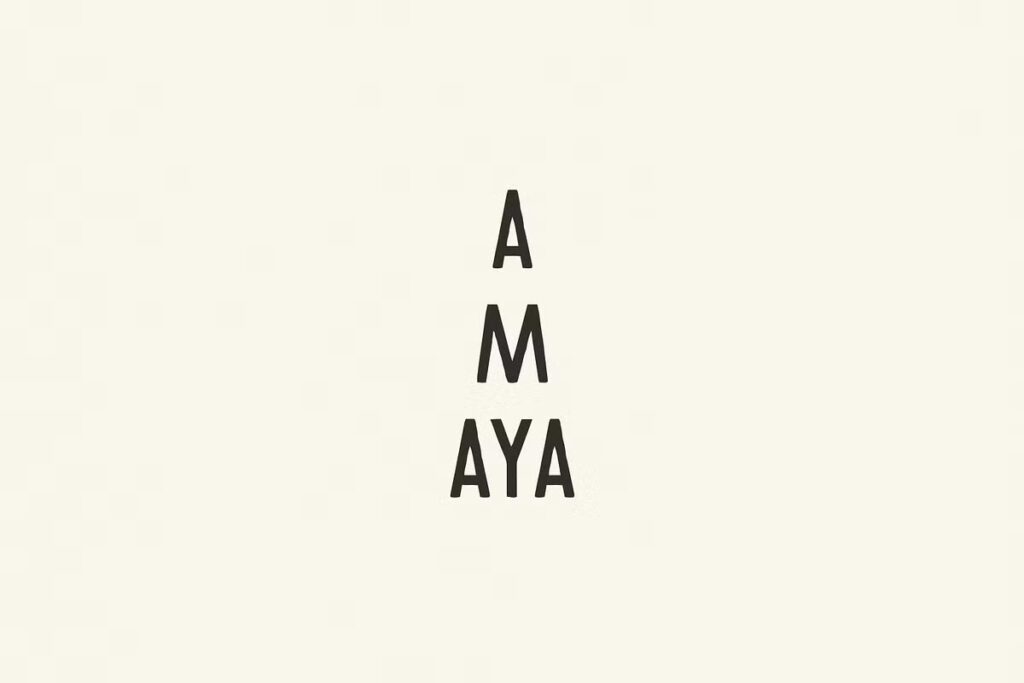
Amaya: A Bold and Tall Display Typeface for Unique Designs
For designers seeking a tall, eye-catching typeface with a vintage flair, Amaya is the perfect choice. Inspired by a vintage snake bite kit, this distinctive font combines tall, hand-drawn letterforms with wide stance letters, creating a unique balance of contrast and elegance. Whether you’re working on branding, posters, or any creative project, Amaya is sure to add a touch of individuality and boldness to your designs.
Why Choose Amaya Typeface?
Amaya offers a distinct visual style that immediately grabs attention. With its hand-drawn aesthetic and vintage inspiration, this typeface is perfect for projects that require a sense of uniqueness and character. The blend of tall, narrow forms and wide stance letters gives your designs a striking look, making it ideal for headings, titles, and display text.
Key Features of Amaya:
Tall, Hand-Drawn Forms: Amaya’s tall letters create a bold visual statement, perfect for making an impact in headlines and display text.
Uppercase Letters: The font includes all uppercase letters, making it a great choice for bold and clean designs.
Numbers & Basic Punctuation: Amaya also includes numbers and basic punctuation, providing everything you need for professional typography.
Vintage Inspiration: The font draws inspiration from a vintage snake bite kit, giving it a nostalgic yet modern vibe.
Best Uses for Amaya Typeface:
Posters and Flyers: Make your event promotions and posters stand out with the bold, tall letterforms of Amaya.
Branding and Logos: Amaya’s unique contrast and hand-drawn style make it a great choice for crafting memorable brand identities.
Editorial Design: Use Amaya for magazine headers or book covers where a strong, tall typeface can enhance the visual appeal.
Creative Projects: From digital designs to print materials, Amaya adds personality to any project that needs a distinctive touch.